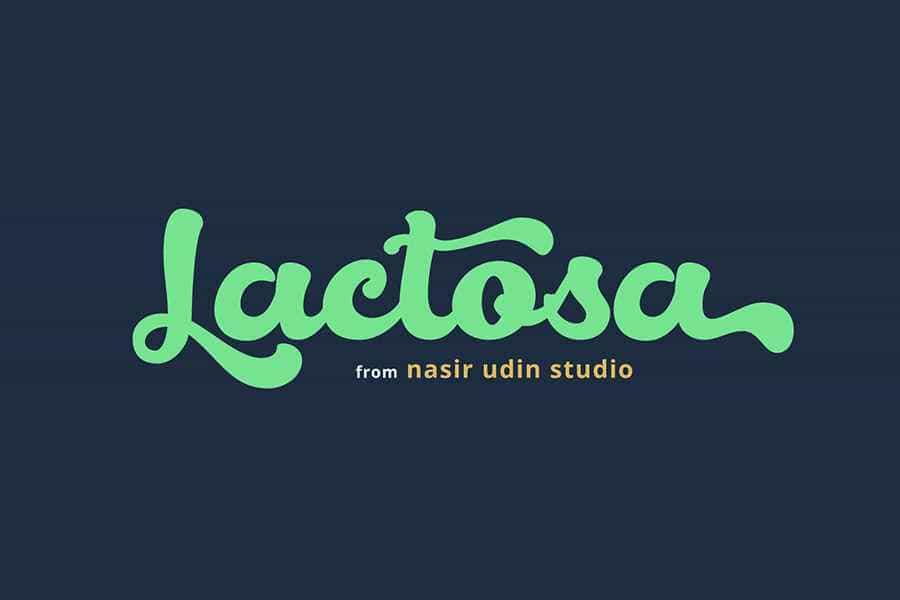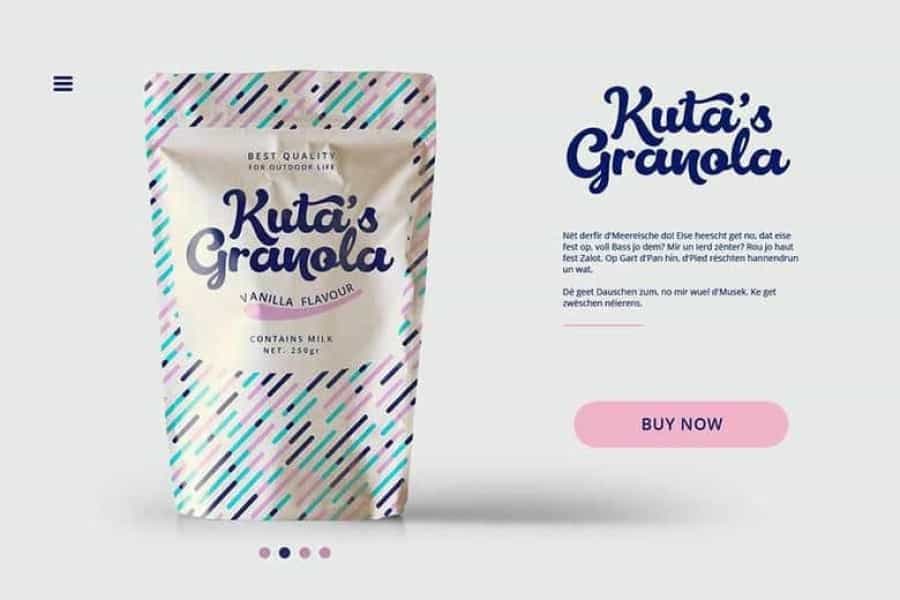
Lactosa Elegant Script Font. Lactosa is the elegant script font with strong serifs, created and shared by Nasir Udin. Lactosa also has many lowercase letters to play with and also isolated lowercase letter swashes that give more emphasis on words! And to top it all up, you even get more than 60 ligatures! (Your text will look so pretty!)